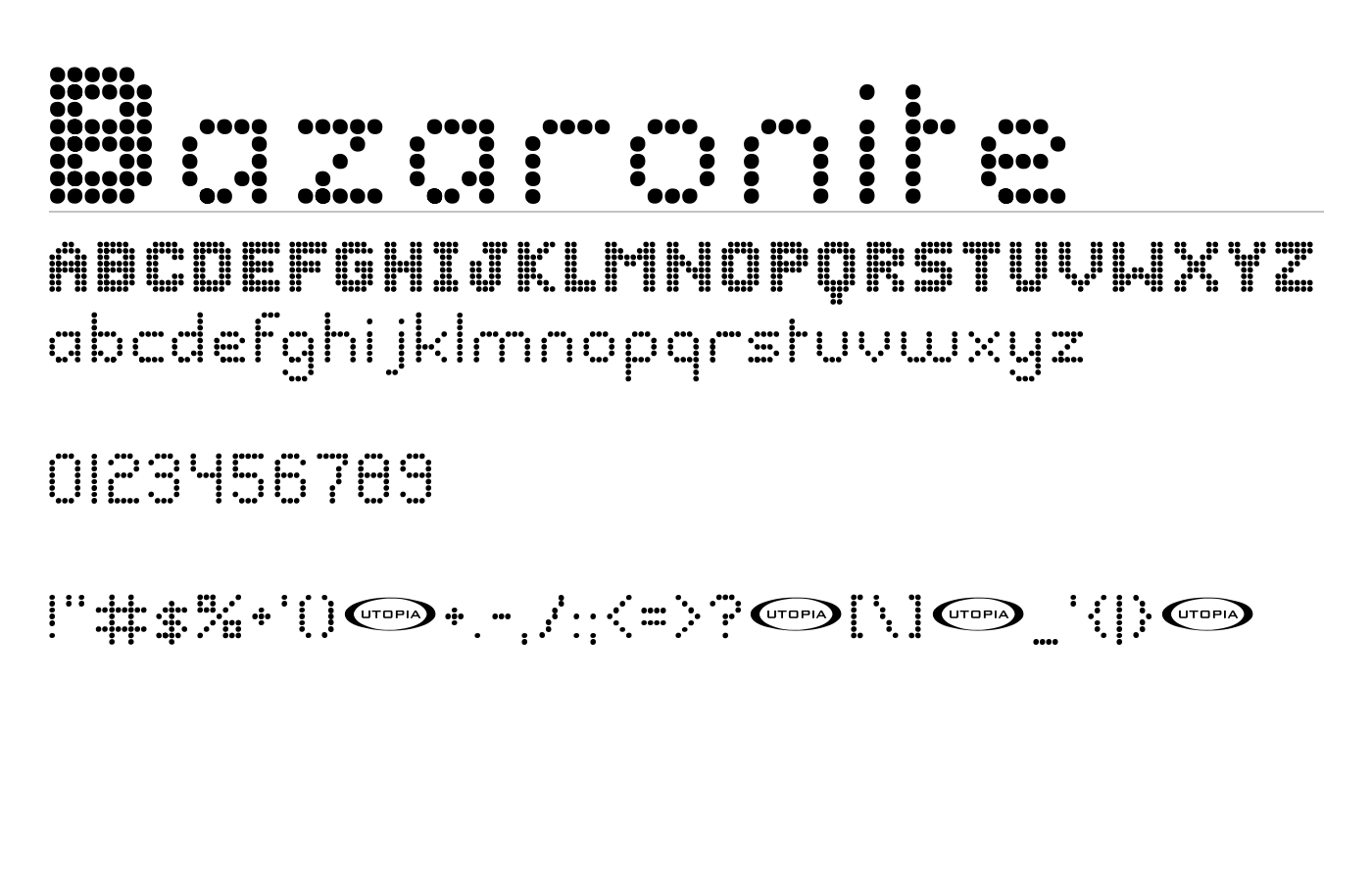
Bazaronite is a unique sans serif display font characterized by its playful dotted pattern that forms each letter and symbol. It has a regular weight and balanced width, with clean geometric shapes and a modern, digital-inspired feel, making it perfect for eye-catching headlines, tech branding, or creative packaging. This font brings a futuristic yet approachable personality, ideal for projects seeking a bold, distinctive look that stands out in a visually engaging way.
Bazaronite Font